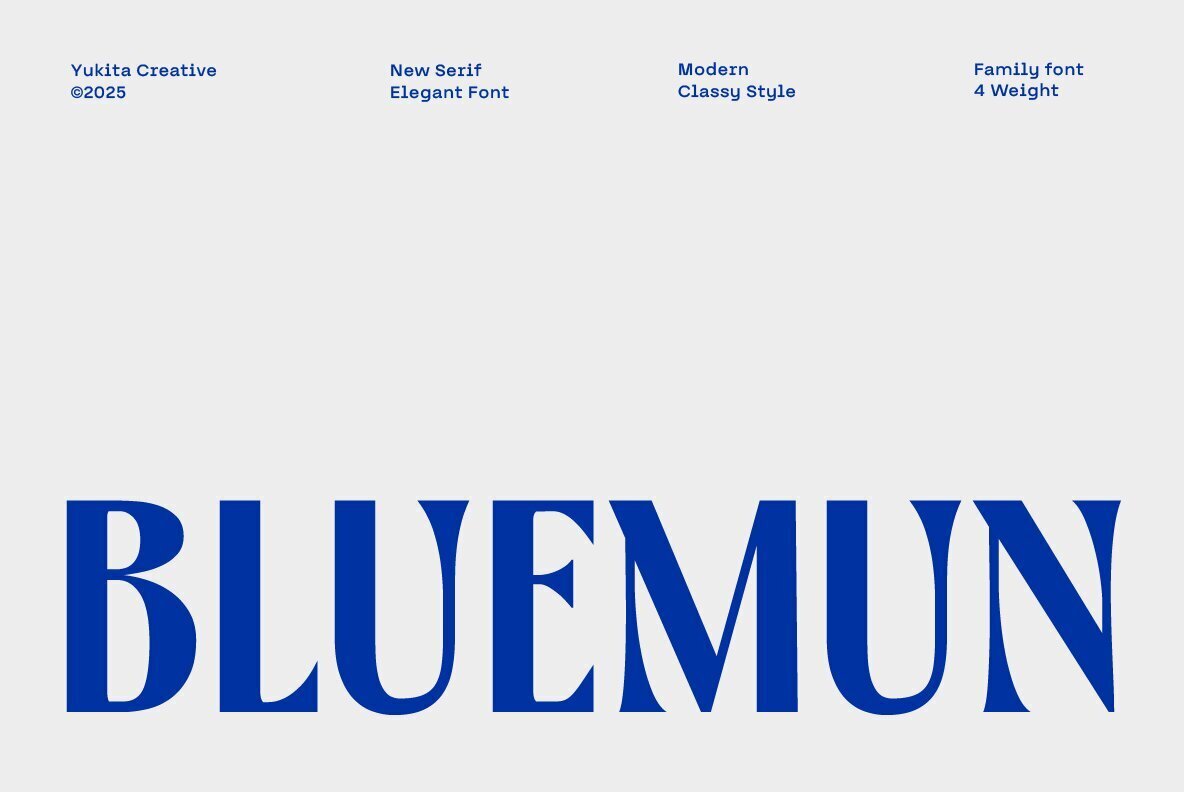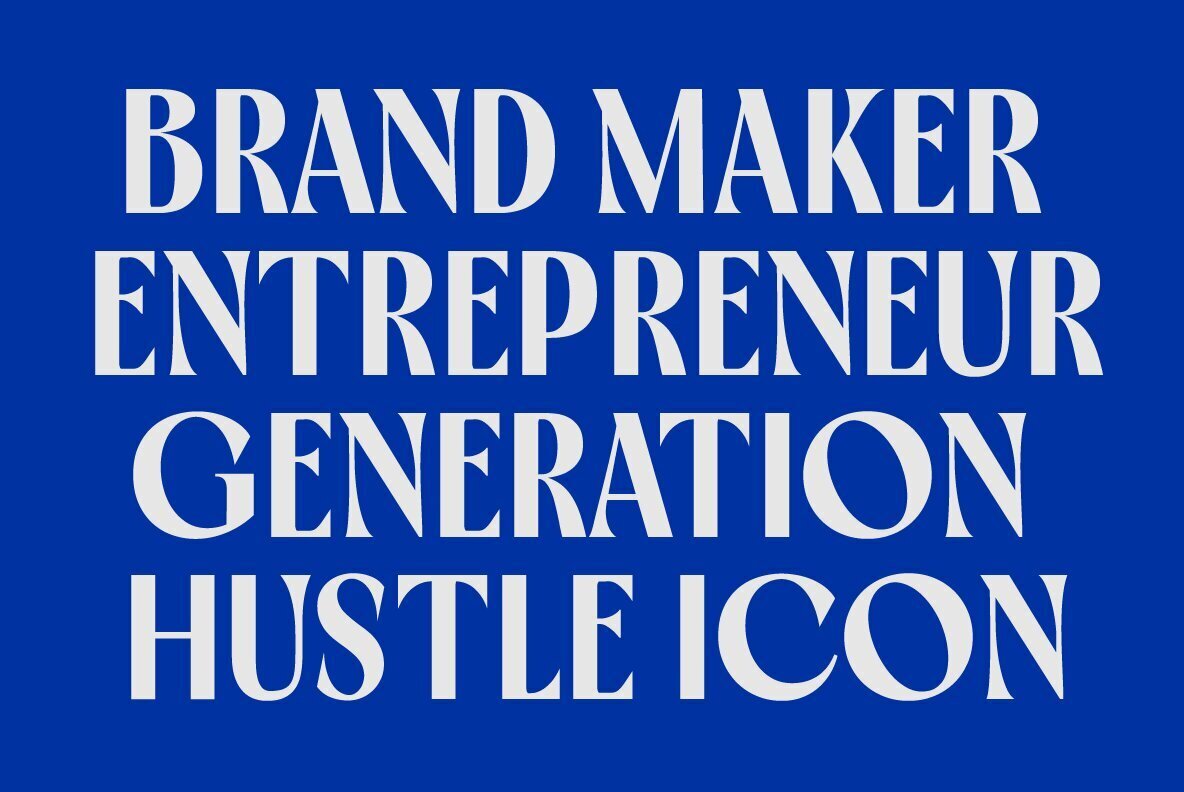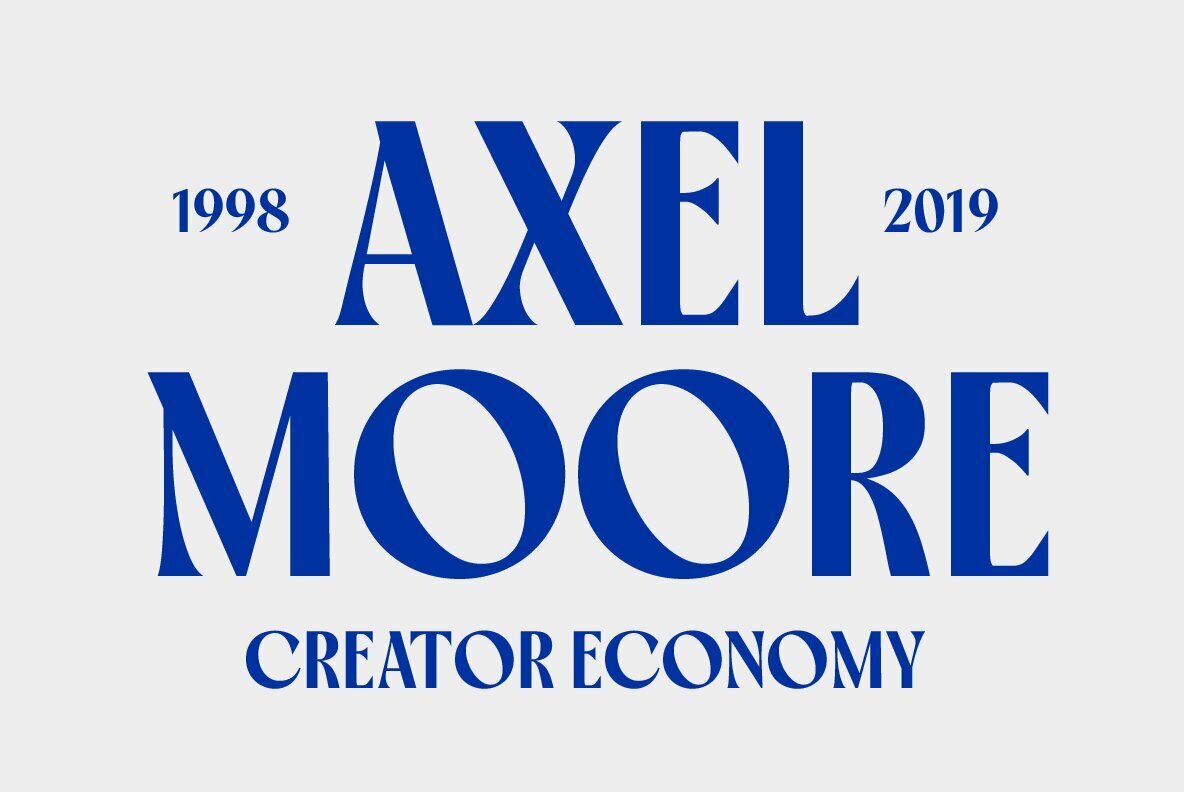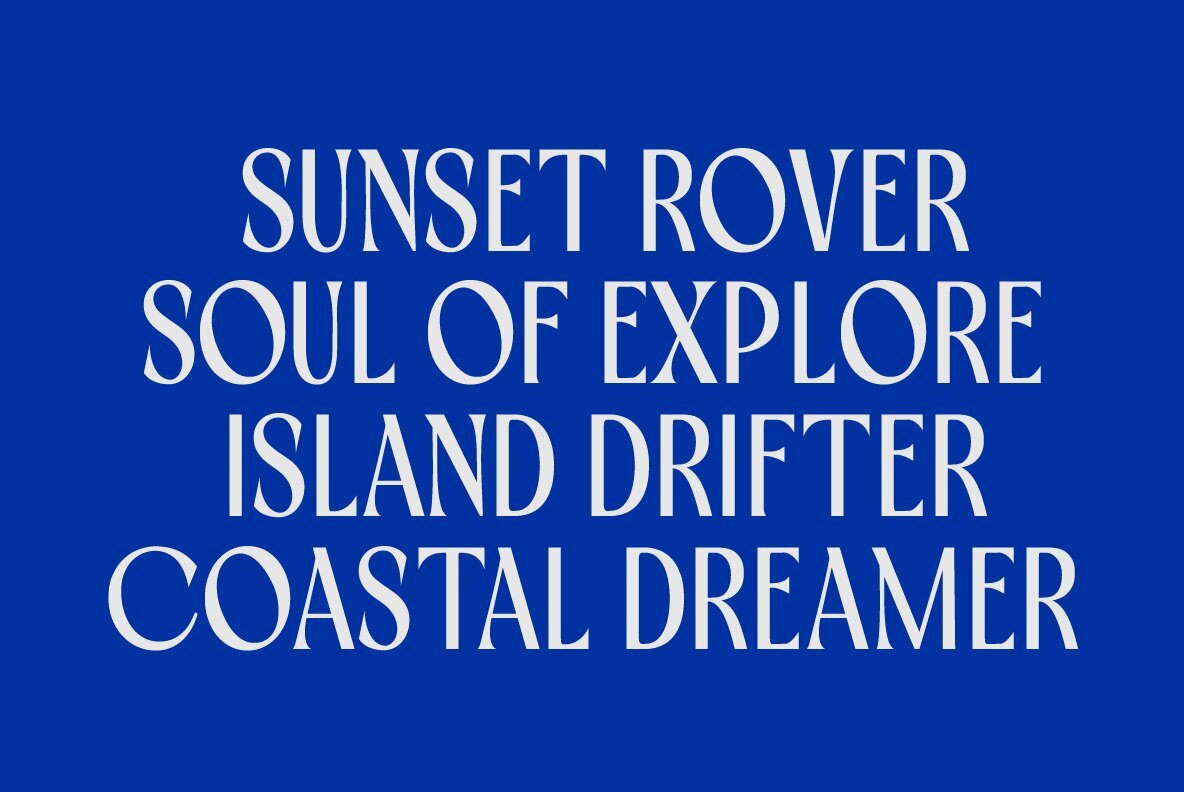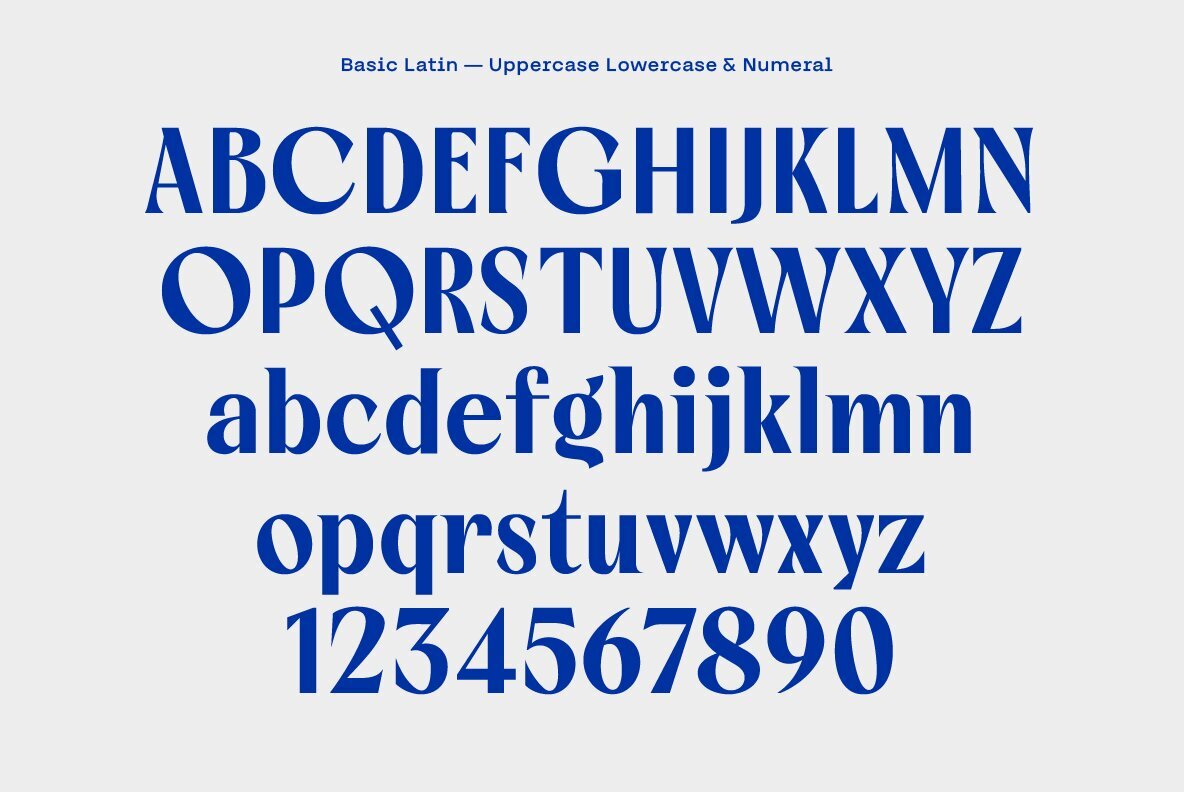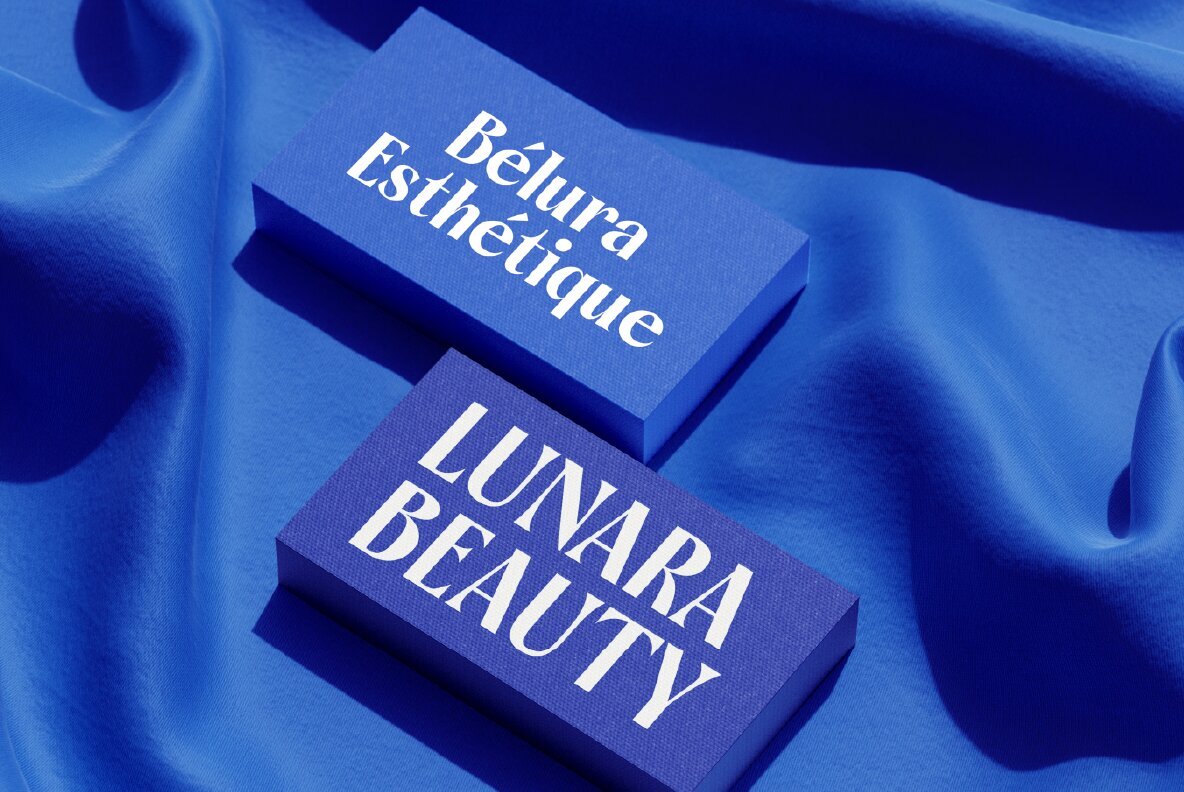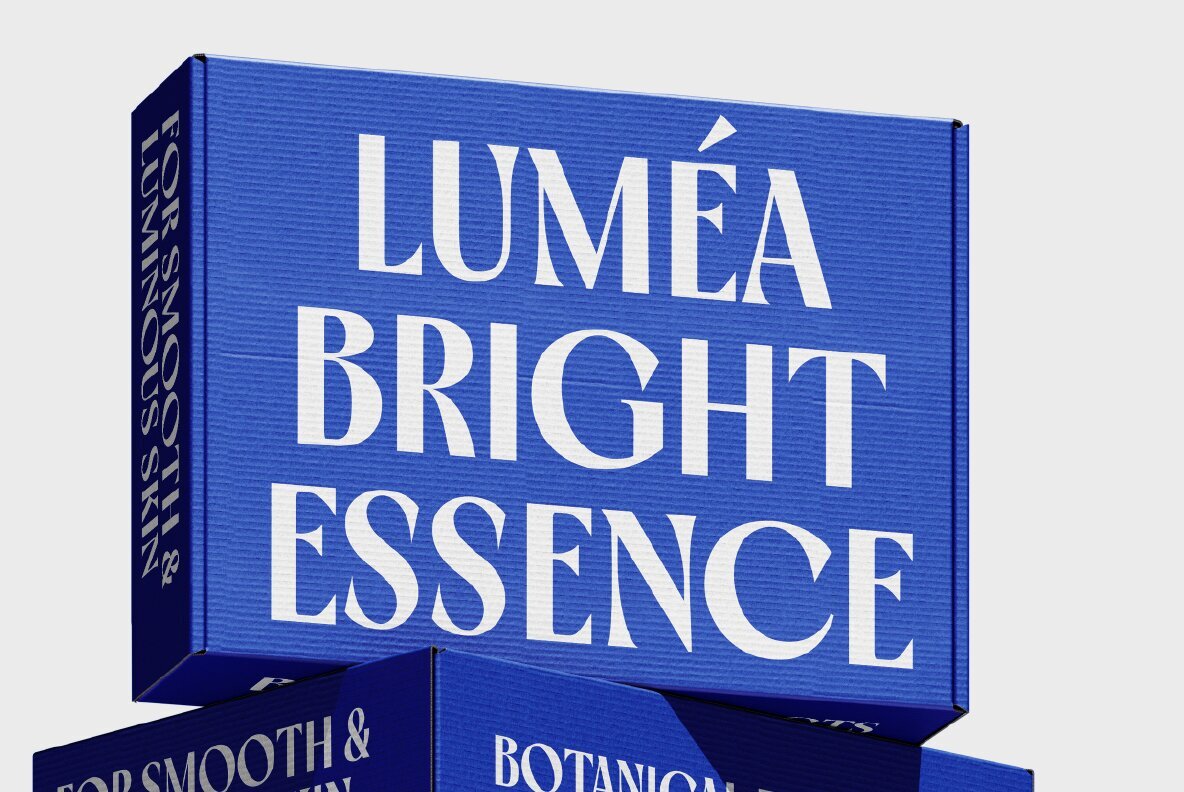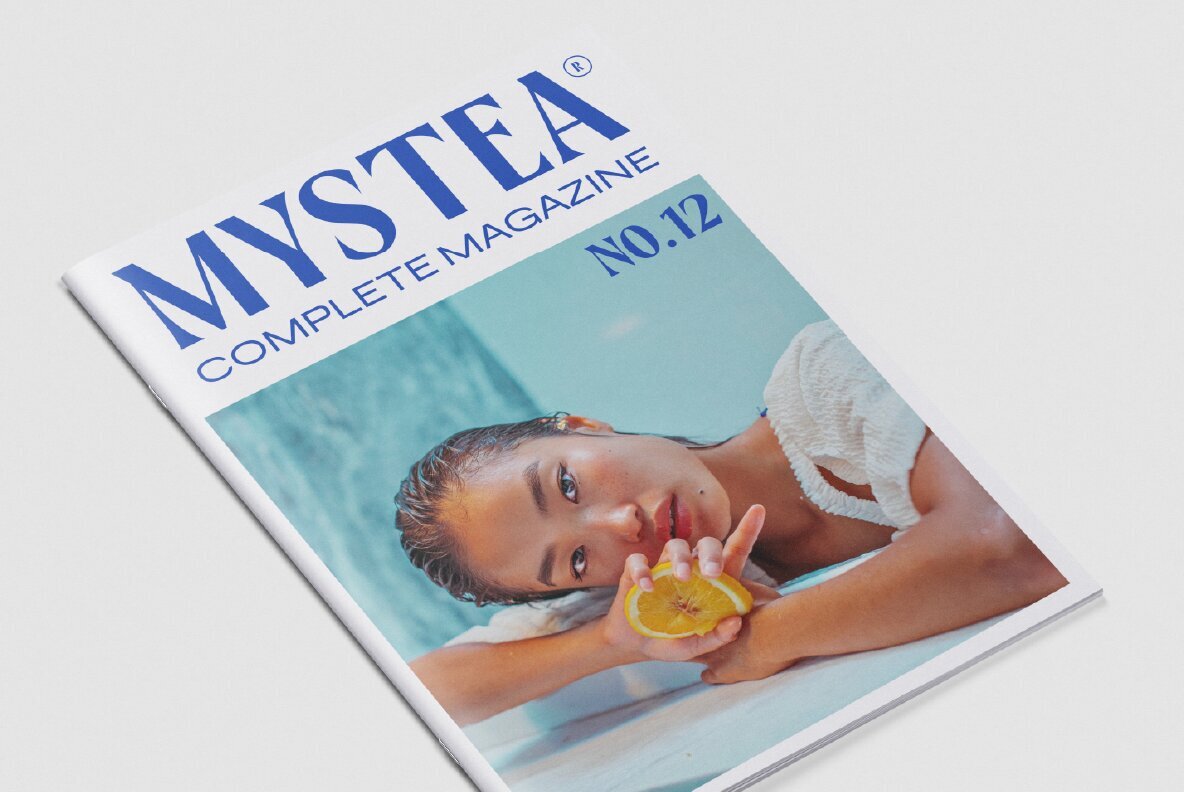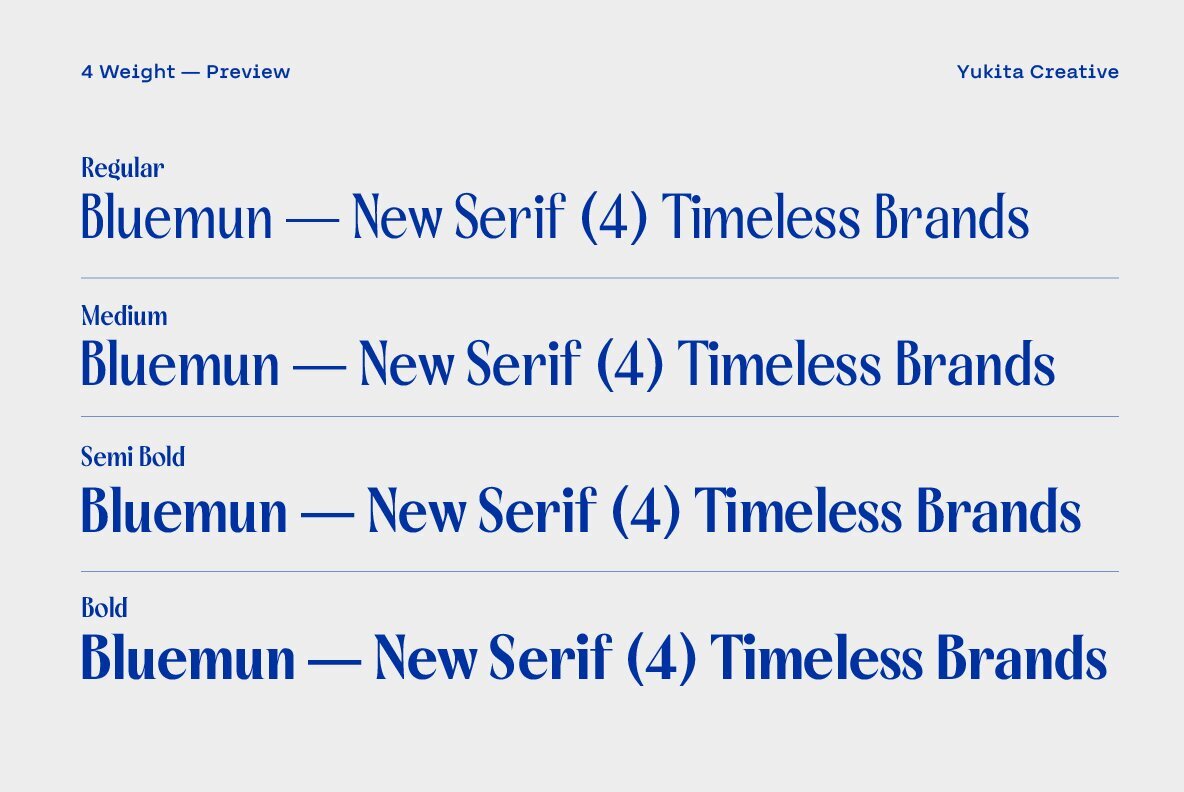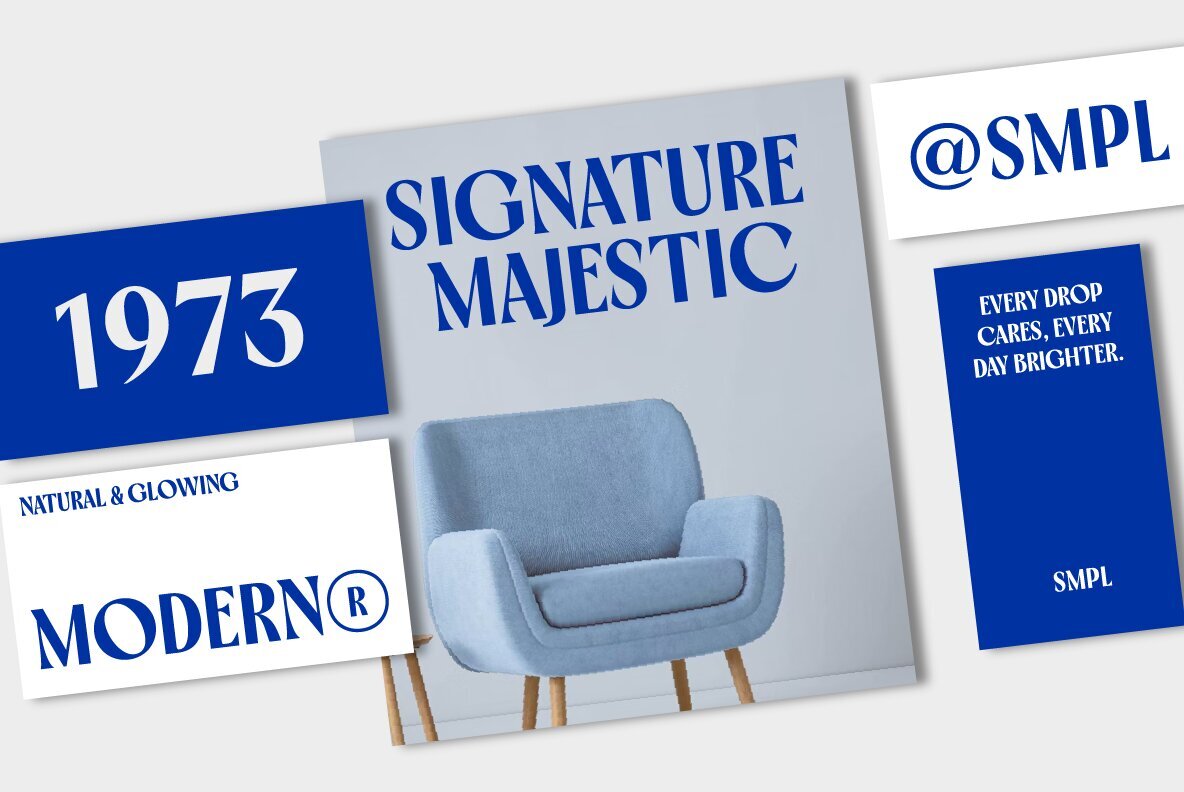
Bluemun Font
Bluemun Serif by Yukita Creative is where simplicity meets elegance. This refined serif typeface is perfect for a variety of design projects, seamlessly blending modern and classic aesthetics. Available in four adaptable weights — Regular, Medium, SemiBold, and Bold — it caters to headlines, branding, invitations, and editorial layouts. The font boasts clean lines and subtle curves, offering a sophisticated visual appeal that enhances both digital and print formats. Its stylish design, paired with excellent readability, makes it an ideal choice for display text. Fully equipped with multilingual support, Bluemun Serif ensures smooth performance across multiple platforms, accommodating diverse design requirements.Bluemun Serif: Timeless Elegance for Your Designs